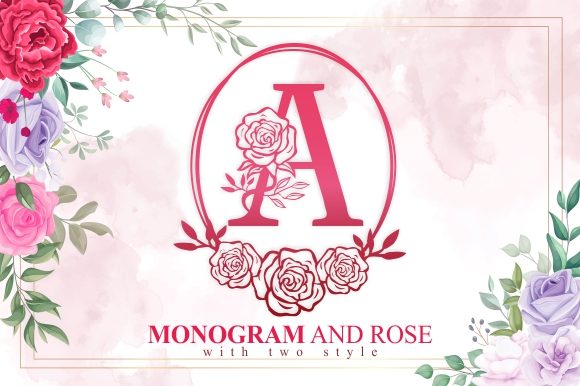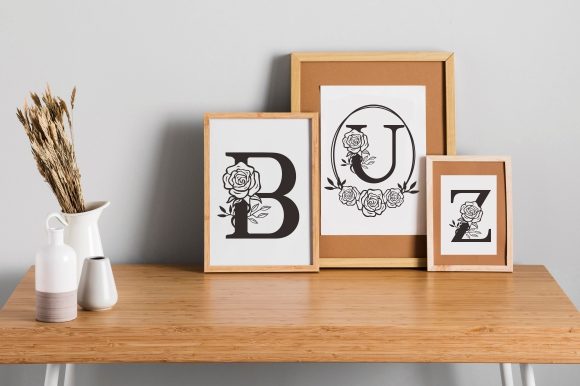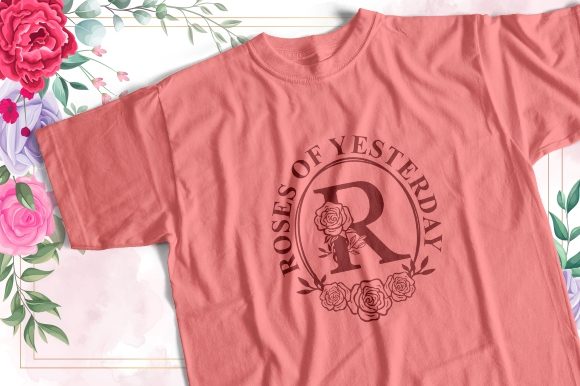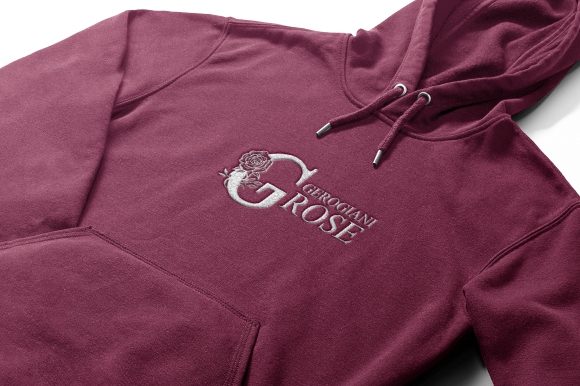
Monogram and Rose Font
About the Monogram and Rose Font
Crafted with precision, the Monogram and Rose Font is ready to bring your ideas to life. Monogram and Rose is a graceful decorative font, featuring lovely flower ornaments. Fall in love with its authentic feel and use it to create ravishing wedding invitations, beautiful stationary art, eye-catching social media posts, and cute greeting cards.
Its elegant, decorative style makes it ideal for projects requiring a touch of vintage charm, such as wedding stationery, branding for boutiques, or packaging for high-end beauty products. However, its ornate details make it unsuitable for body text or user interfaces where readability is paramount. Avoid using it for large blocks of text.
Monogram and Rose pairs well with clean sans-serif fonts like Lato or Montserrat for a balanced contrast, or with a classic serif like Garamond or Playfair Display for a more traditional feel. A script font like Great Vibes could add a touch of whimsicality to certain applications.
The font’s overall personality is romantic and refined, conveying a sense of classic elegance and sophistication. It’s best suited for brands and projects aiming for a timeless, slightly feminine aesthetic.
Monogram and Rose Font Usage Examples
Monogram and Rose Font Example